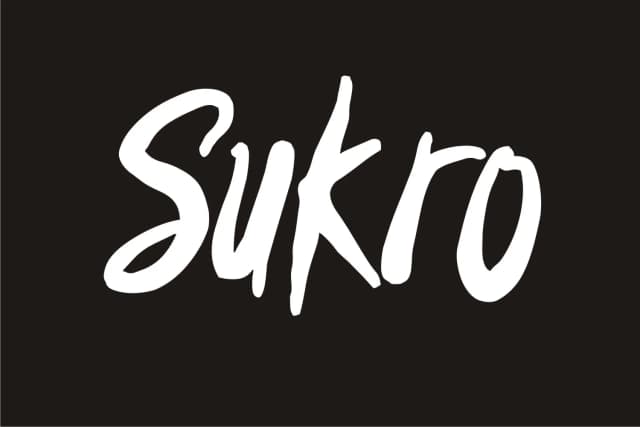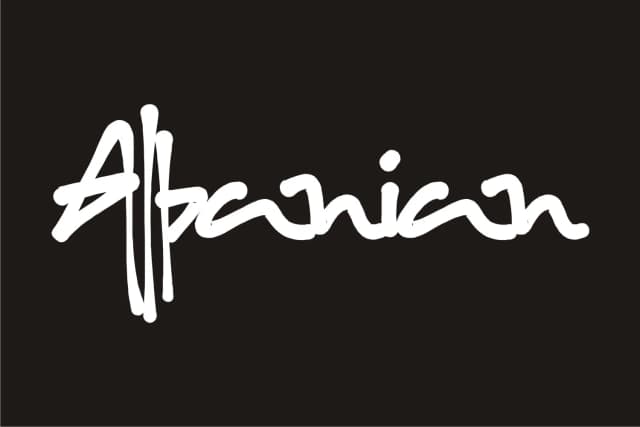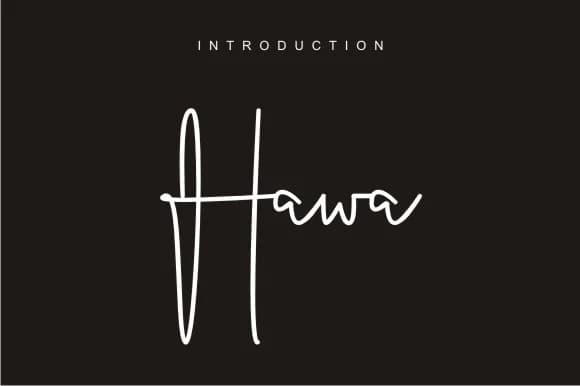
1 / 7About Buhary Font
Buhary by harisprawoto is a playful handwritten script featuring an organic, bouncy character that brings authentic warmth to contemporary design work. The font showcases a distinctive rhythm throughout its letterforms, creating visual interest and personality while maintaining strong legibility across different applications. Its approachable, engaging style makes it instantly recognizable yet remains wonderfully practical for both prominent display uses and supporting text roles in layouts.
The versatility of this typeface shines through in wedding invitation suites, where its informal elegance suits celebratory announcements. Boutique product packaging benefits from Buhary's human-drawn quality, helping artisanal brands stand out on retail shelves. Designers frequently turn to it for personalized greeting card designs and hand-lettered social media graphics that need to feel genuine rather than automated. DIY craft enthusiasts and small business owners creating Etsy shop branding particularly appreciate how the font's warmth communicates care and attention to detail.
Beyond commercial applications, Buhary translates beautifully to children's book illustrations, event posters, and artistic signage projects where personality and authenticity matter more than formal polish. The font's energetic presence works especially well when you want designs that feel handmade and approachable rather than corporate or distant. Whether for personal creative projects or professional client work, Buhary delivers character without compromising usability.
Buhary Font is a script font that shines as a display or heading face. Pair it with a clean sans-serif or serif font for body text β the contrast creates a clear hierarchy while the two styles stay balanced and easy to read.
Buhary Font
by harisprawoto